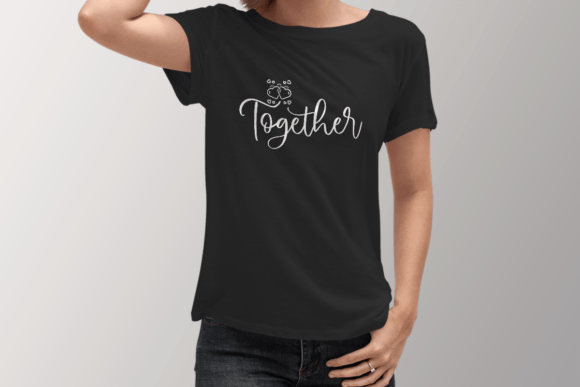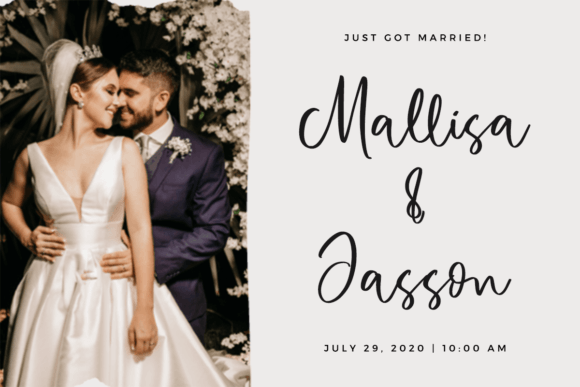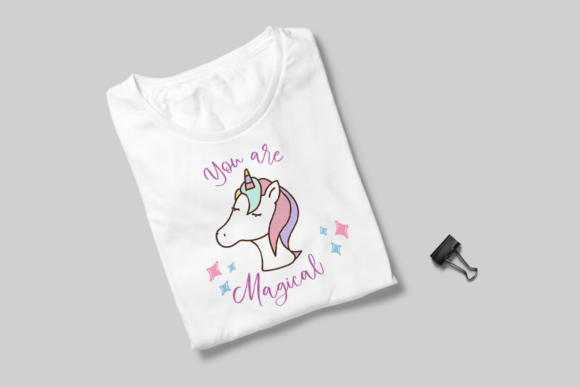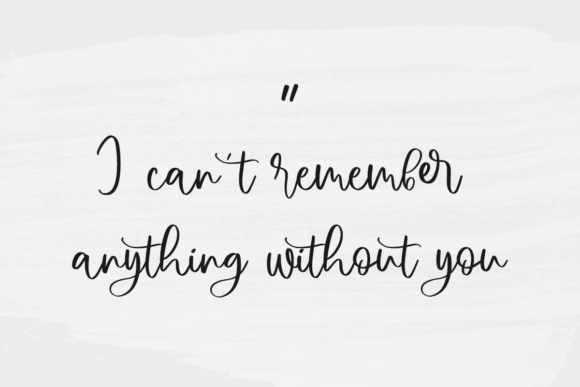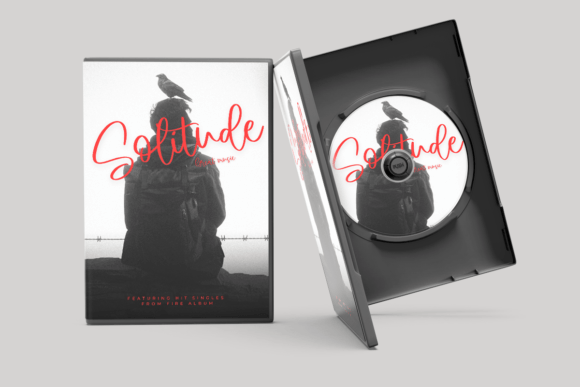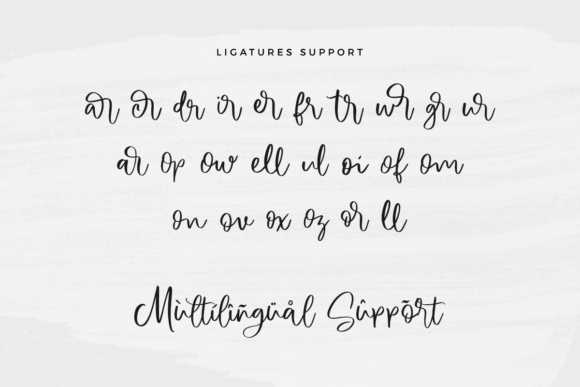
The Sweet Allure of Handwritten Charm: Introducing Agrinta Font
As designers, we’ve all been there – staring at a blank page, struggling to find the perfect font to bring our creative vision to life. And then, like a breath of fresh air, it happens – the perfect font comes along, and our designs transform in an instant. For me, that font is Agrinta Font – a sweet and quirky handwritten font that adds a touch of whimsy to any project.
Agrinta Font is more than just a font – it’s a way to add personality and character to your designs. Whether you’re working on a wedding invitation, a children’s book, or a social media campaign, Agrinta Font is the perfect choice to make your designs look lovely and captivating. With its PUA encoding, you can access all of the glyphs and swashes with ease, giving you endless possibilities to create unique and eye-catching designs.
- Font Family: Agrinta Font is a font family that includes multiple styles and weights, offering a wide range of options for designers and typographers.
- Character Count: The font family includes over 700 characters, including uppercase and lowercase letters, numbers, punctuation marks, and special characters.
- Unique Characteristics: Agrinta Font features a unique blend of modern and vintage elements, with intricate details and ornate flourishes that set it apart from other fonts.
Agrinta Font Review
As a designer, I was excited to dive into the Agrinta font, and overall, I’m impressed with its potential. Here are some of its strengths and weaknesses.
- Unique Style: Agrinta offers a distinctive, elegant style that can add a touch of sophistication to various designs.
- High-Quality Rendering: The font renders beautifully, with crisp lines and smooth curves.
- Good Legibility: Agrinta’s design ensures good readability, making it suitable for body text and larger headings.
- Limited Character Set: Agrinta’s character set is relatively limited, which might not be suitable for projects requiring extensive language support.
- No Variable Font: Agrinta is a static font, which may limit its adaptability to different devices and screen sizes.
Overall, I think Agrinta is a solid choice for designers looking to add a touch of elegance to their work. While it may have some limitations, its unique style and high-quality rendering make it a worthwhile option for the right projects.
Getting the Most Out of Agrinta Font
For best results, use Agrinta Font in combination with other elegant fonts to create a sophisticated look.
Experiment with different font sizes and colors to add visual interest to your designs.
Agrinta Font is ideal for:
Alternatives to Agrinta Font
Agrinta Font is a sans-serif typeface known for its clean lines, modern look, and readability. Here are some alternatives for designers:
Lato Font is a popular sans-serif typeface designed by Łukasz Dziedzic. It has a clean and modern look with a subtle rounded edge. Lato is ideal for use in digital media, such as websites, apps, and social media platforms. Compared to Agrinta Font, Lato has a more rounded and friendly feel, making it suitable for body text and titles.
Montserrat Font is a geometric sans-serif typeface designed by Julieta Ulanovsky. It has a strong, modern look with clean lines and geometric shapes. Montserrat is ideal for use in urban environments, such as city guides, maps, and street art. Compared to Agrinta Font, Montserrat has a more geometric and industrial feel, making it suitable for titles and headings.